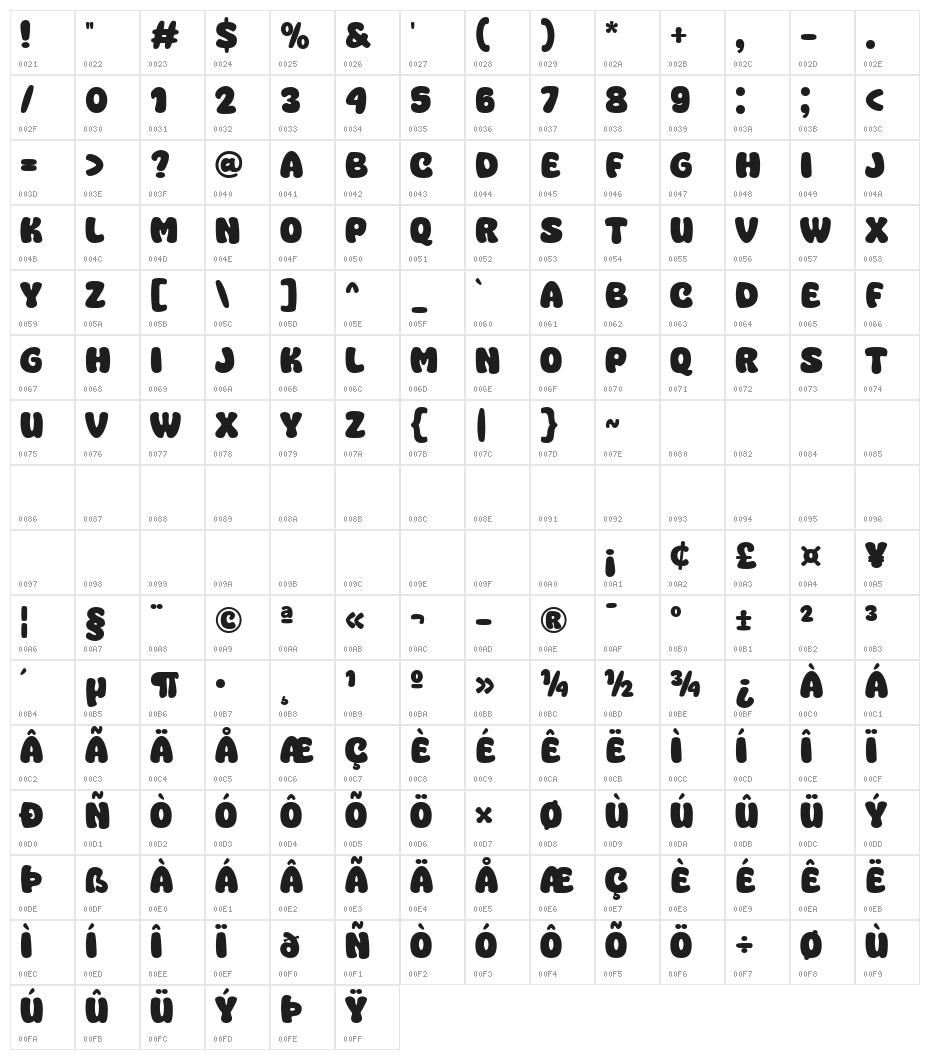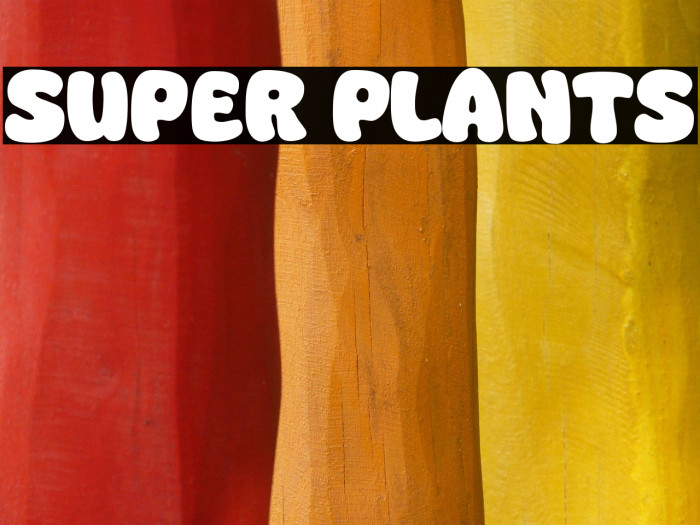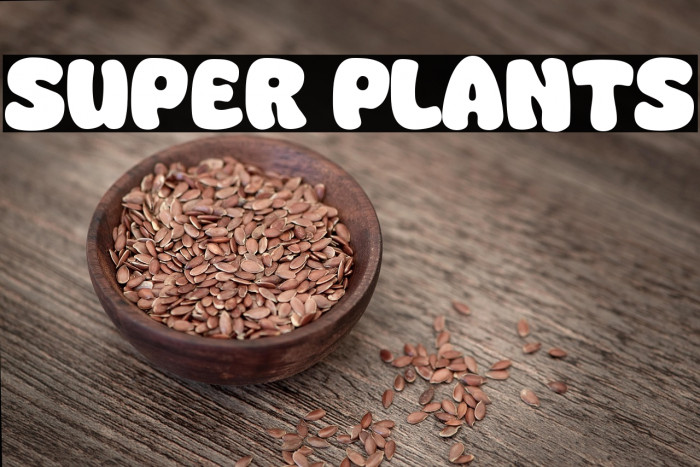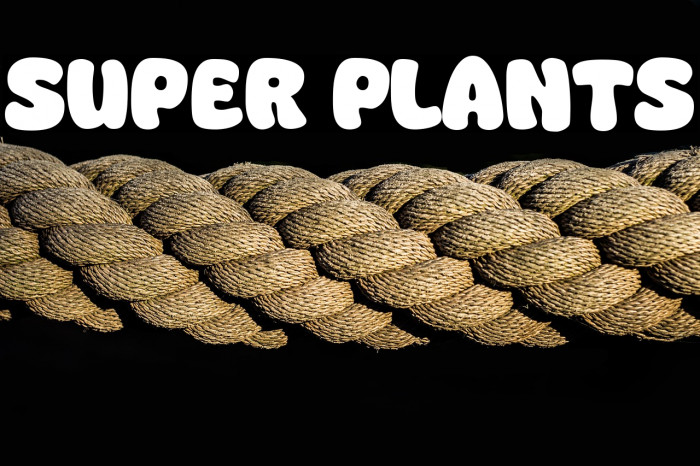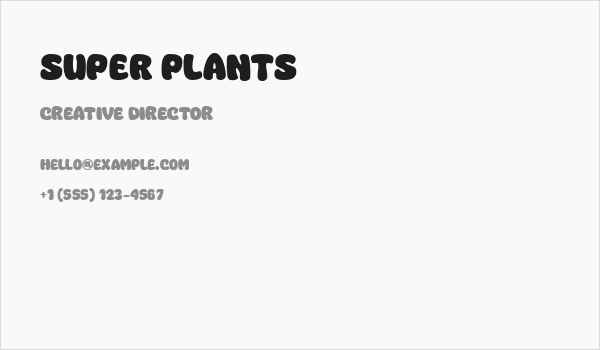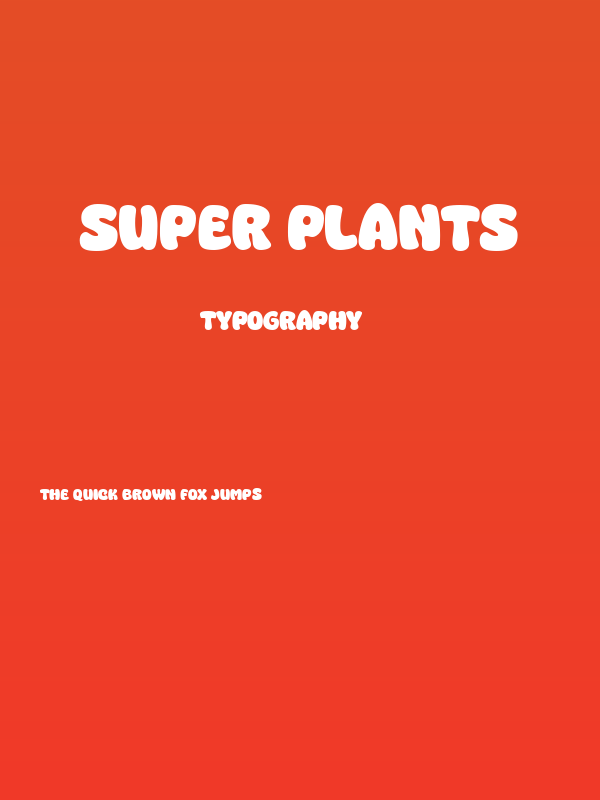
Super Plants Font
Super Plants Description
This font features bold, rounded characters with a playful and friendly appearance. The letters are thick and have a consistent stroke width, giving them a strong presence on the page. The rounded edges and lack of sharp angles contribute to a soft and approachable look, making it ideal for designs that aim to convey warmth and fun. The numbers and special characters maintain the same bold and rounded style, ensuring uniformity across all elements. This font is particularly suitable for projects that require a lively and energetic feel.
| Overall Style | Playful, Friendly, Energetic |
| Proposed Projects | Ideal for children's books, playful branding, posters, and casual invitations. |